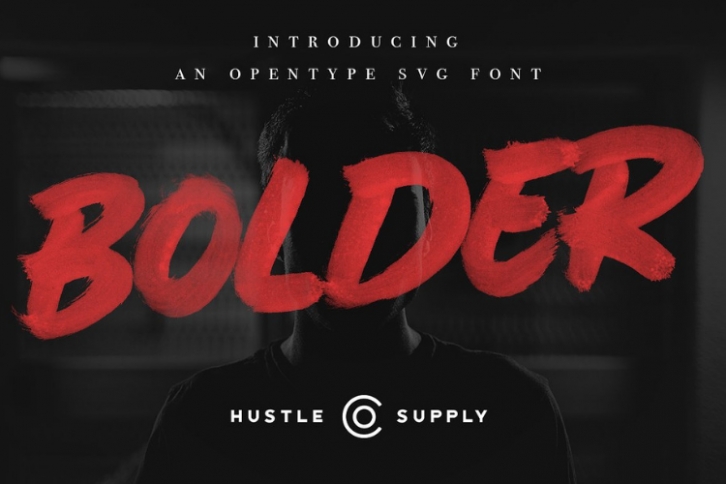
BOLDER is a gorgeous font that was realeased on November 21, 2018. The font can be used in many style contexts and design environments. Perfect for invitations, magazines, websites, logos, and more! It was designed by Hustle Supply Co. and the file size is 12.42 MB. Thanks for checking out this font!